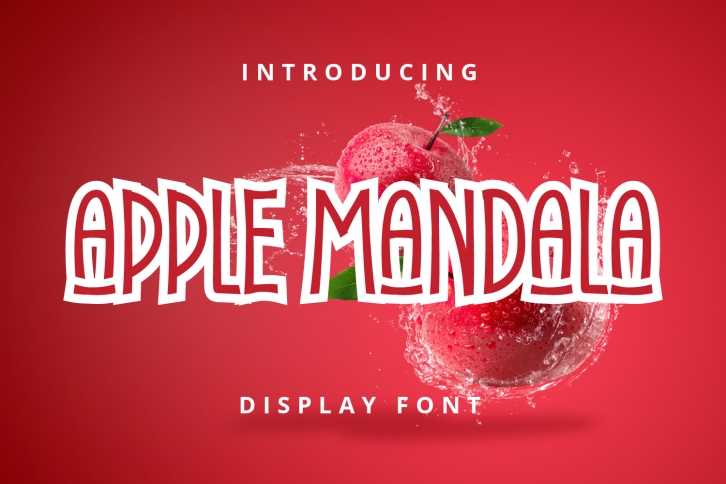
Apple Mandala is a cool, quirky and tall display font. This font is suitable for designs such as t-shirts, sportswear, logos, advertisements, clothing, and more.